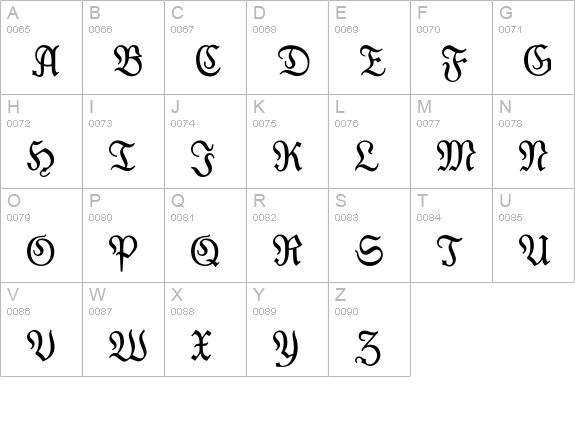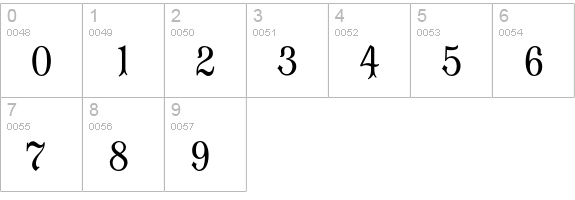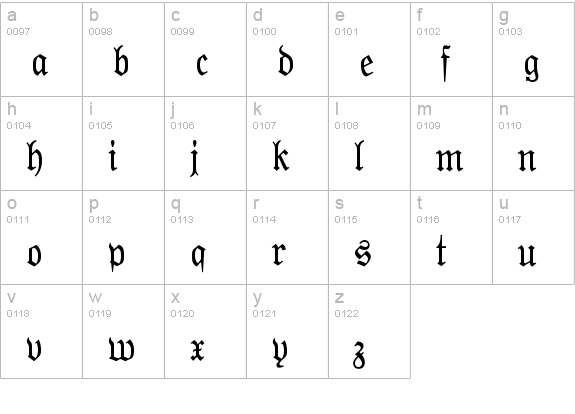
OPTIModern-Blackletter Font Details
Introducing OPTIModern-Blackletter font - a striking and captivating typeface that effortlessly blends the traditional elegance of blackletter with a modern and sophisticated twist. Its intricate and ornate letterforms exude a sense of timeless charm and artistic flair, making it a perfect choice for projects that require a touch of vintage authenticity. What sets OPTIModern-Blackletter font apart is not just its stunning design, but also the fact that it is available for free download at FontsMarket.com. This means that you can easily enhance your creations with this unique and eye-catching font without any cost involved. Whether you are working on branding, packaging, invitations, or any other design project, OPTIModern-Blackletter font is sure to make a lasting impression and elevate your work to new heights. Embrace the beauty and versatility of this font today and let your creativity shine with every letter you write.